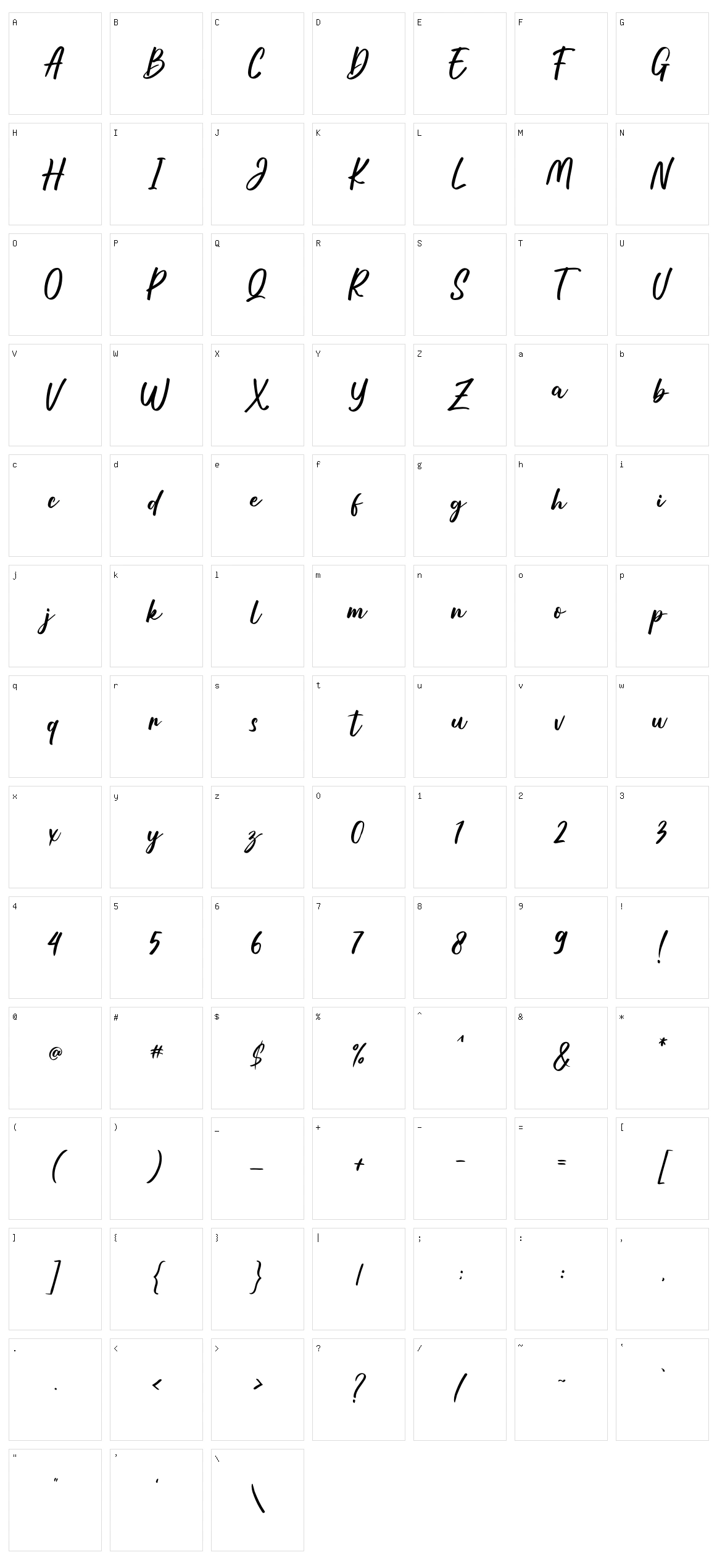
The free font Emily Berlinda is carefully designed by Bluestype Studio, showcasing a thoughtful balance of creativity and usability and falls under the Script font style. When you download the ZIP file, it contains only 39.42 KB of font files, making it lightweight and quick to download. Please review the license details below to understand permitted usage and distribution rights. If license information is not available, we recommend using this font for personal projects only or contacting the author directly for commercial usage permissions.